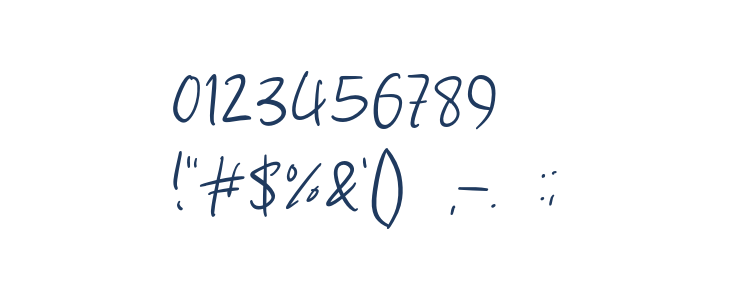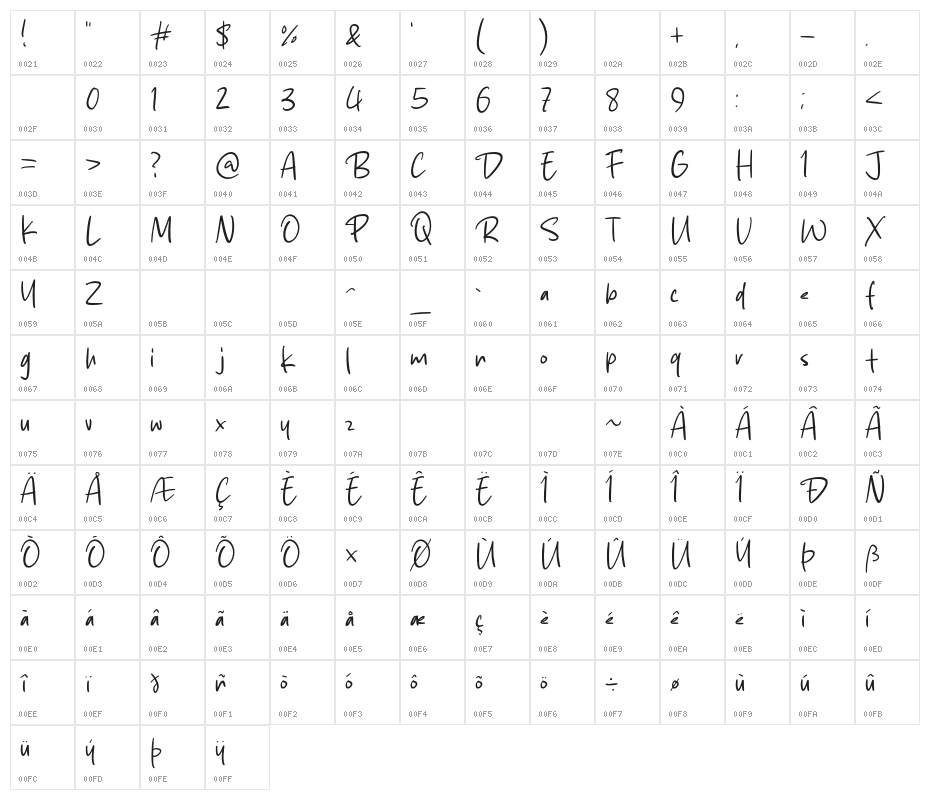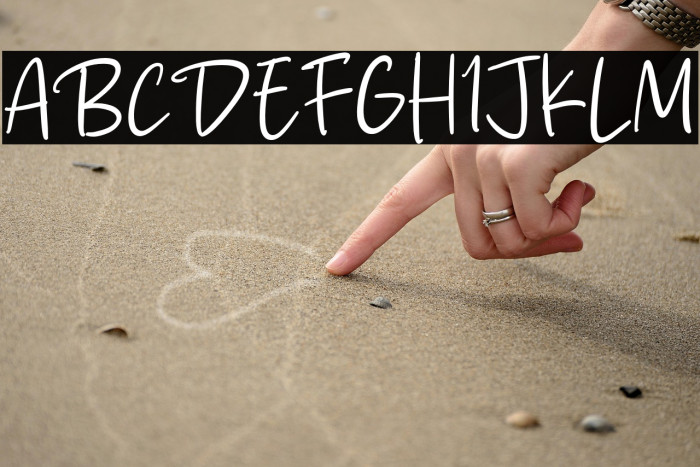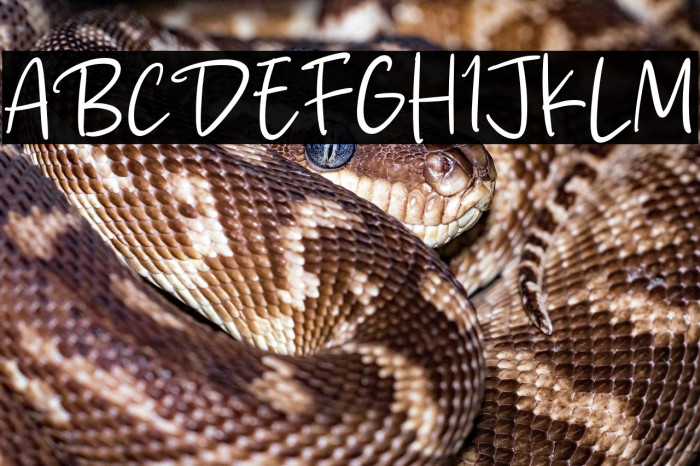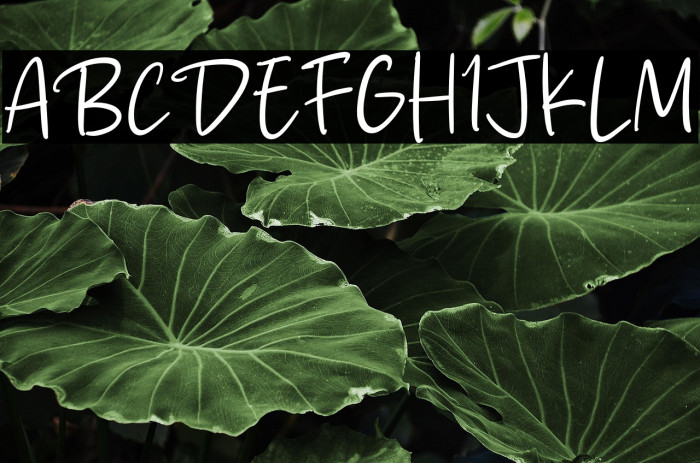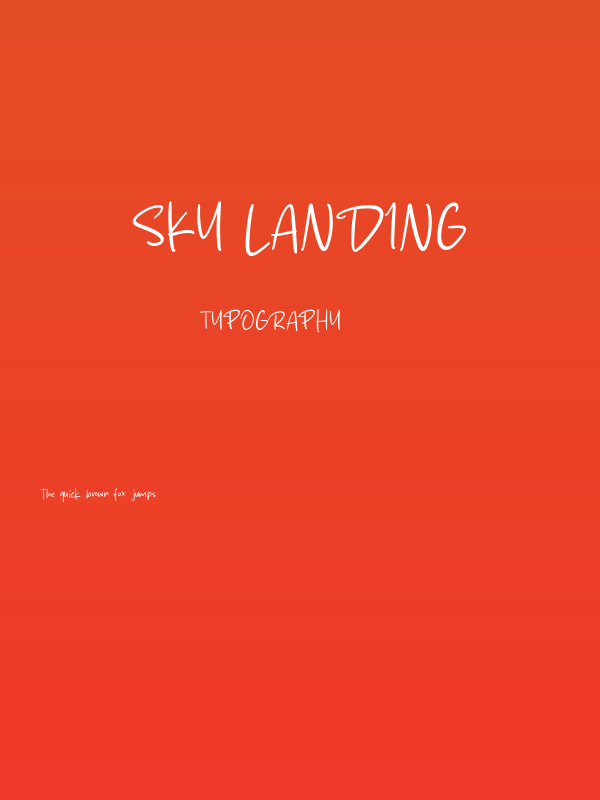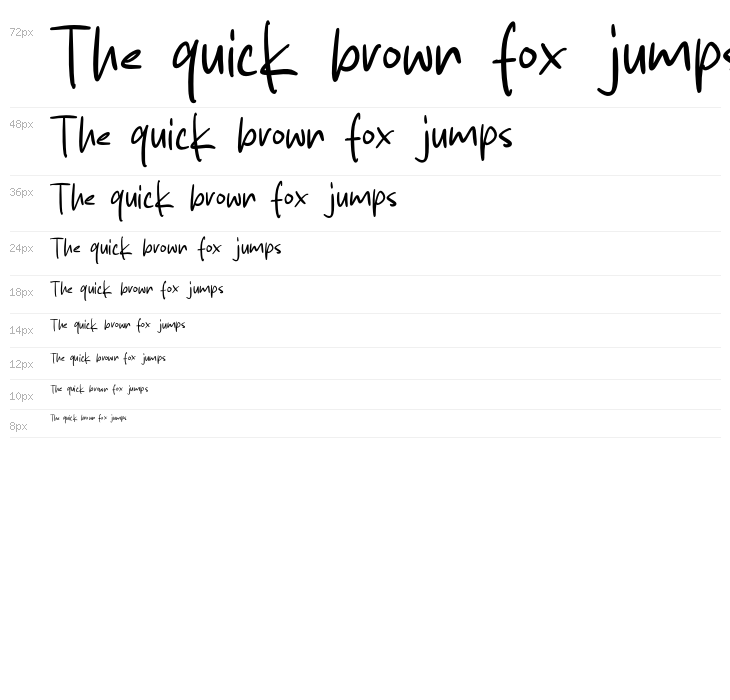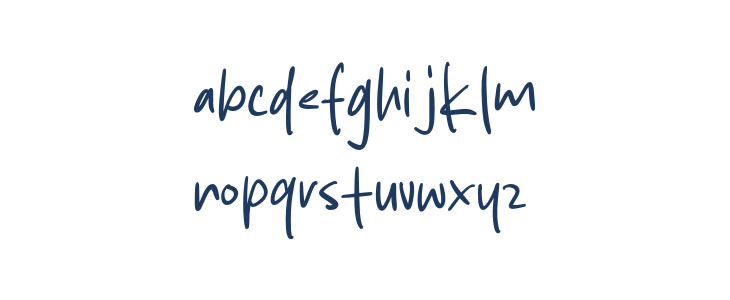
Sky Landing Font
Sky Landing Description
This font exudes a casual and handwritten feel, characterized by its fluid and slightly irregular strokes. The letters are slightly slanted, giving an informal and approachable appearance. The uppercase and lowercase letters maintain a consistent style, with rounded edges and a playful touch. The numbers and special characters follow the same handwritten aesthetic, ensuring uniformity across all glyphs. The overall look is dynamic and lively, making it suitable for projects that require a personal and friendly tone.
| Use Case | Logos, Headlines, Informal Text |
| Proposed Projects | Ideal for greeting cards, personal blogs, informal invitations, and creative branding. |